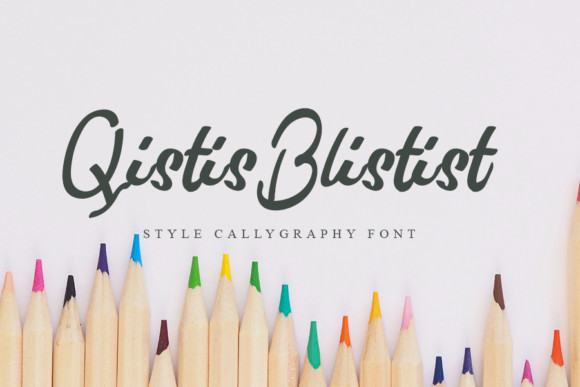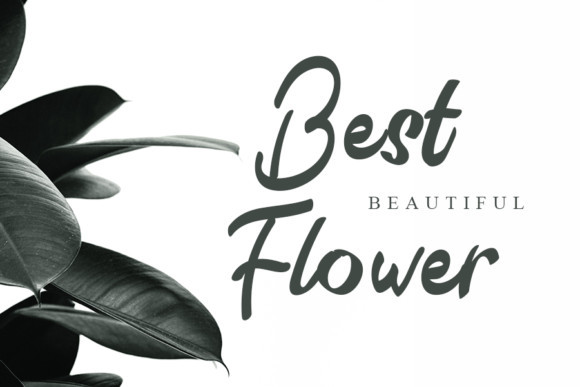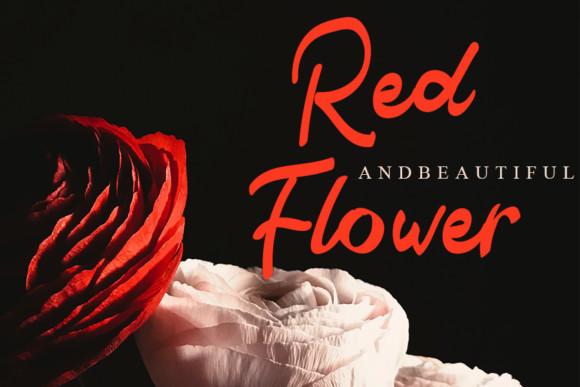
Qistis Blistist Font
Qistis Blistist is an incredibly unique and delicate handwritten font. Beautifully created with the help of a brush pen, this font looks great on a wide variety of designs, both formal and non-formal.